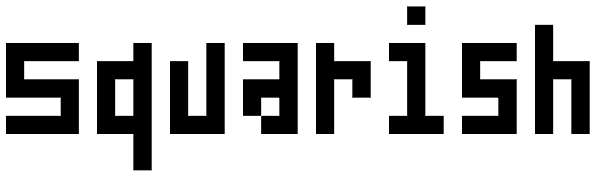
Squarish
Squarish could have been the Universe or Helvetica of the 1980's, if only it was designed then. Now it is just a little quirky gridded typeface.
Squarish Font